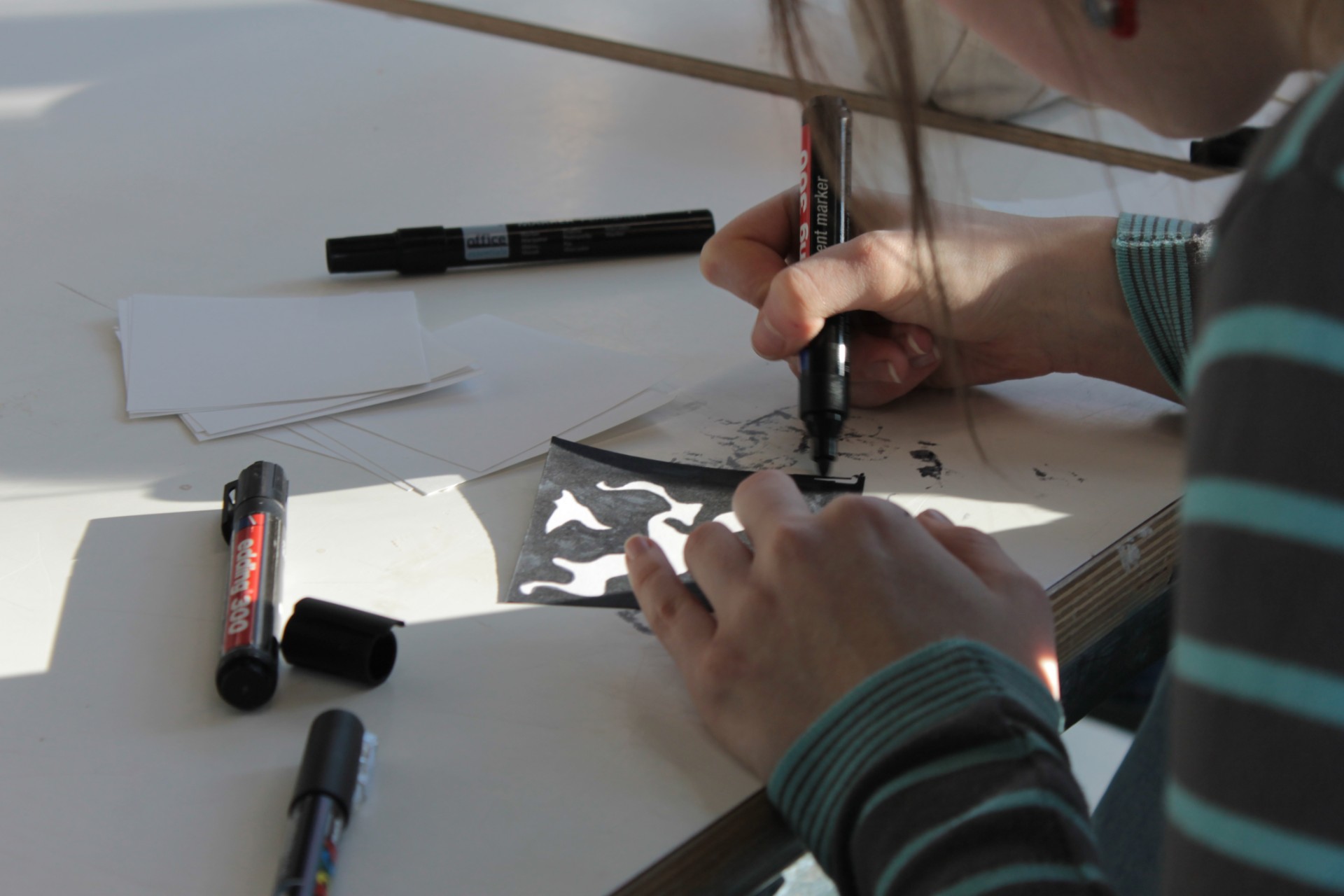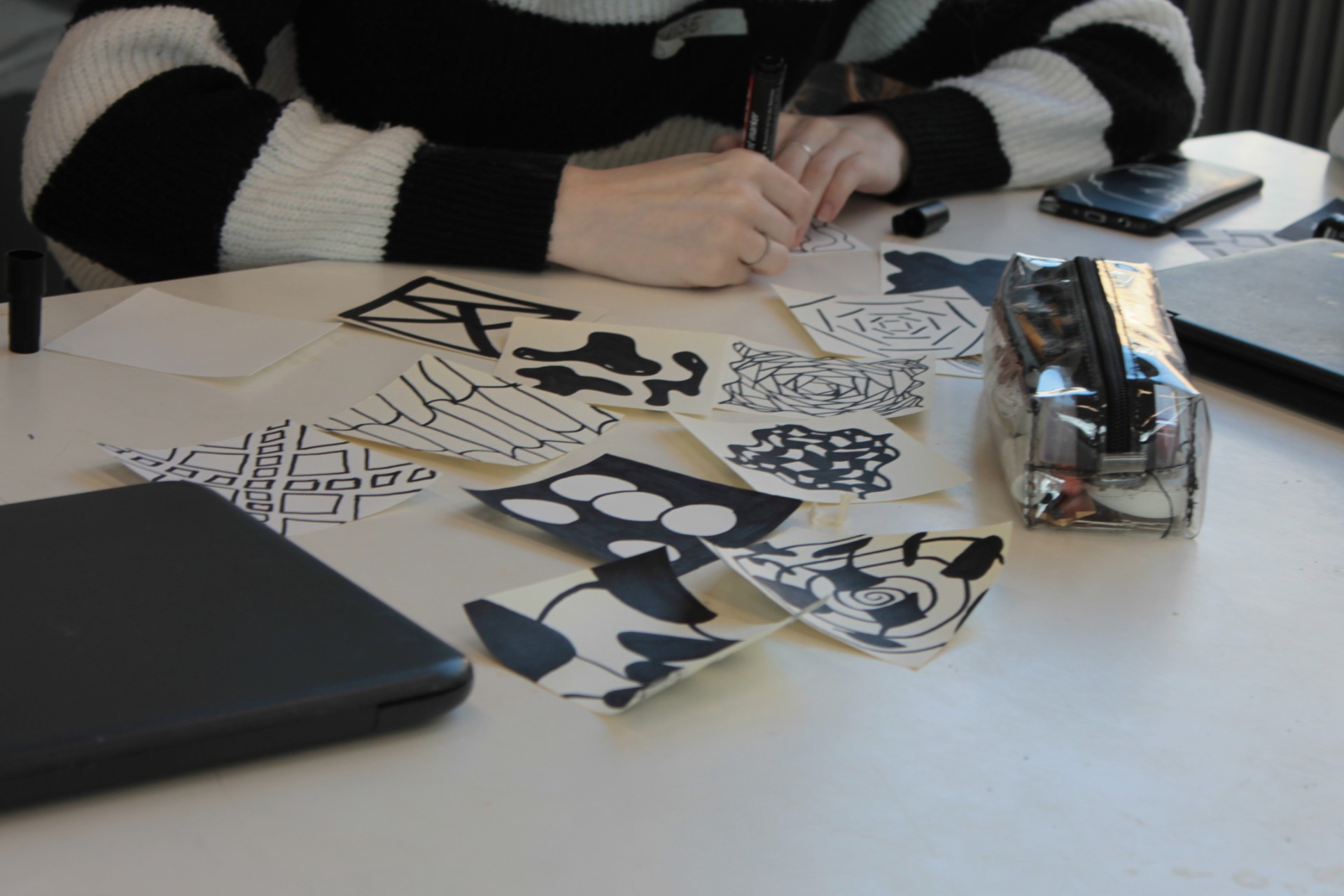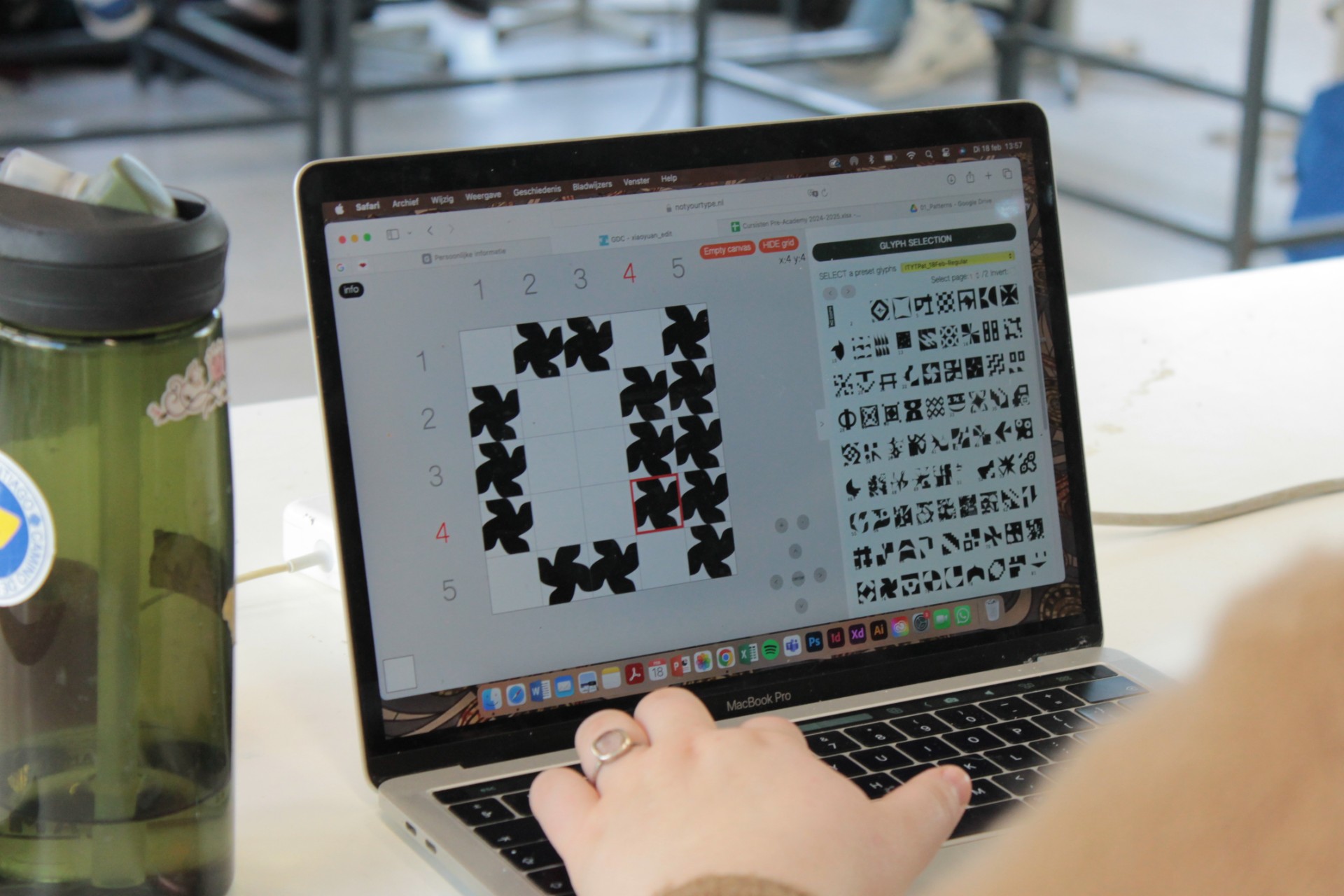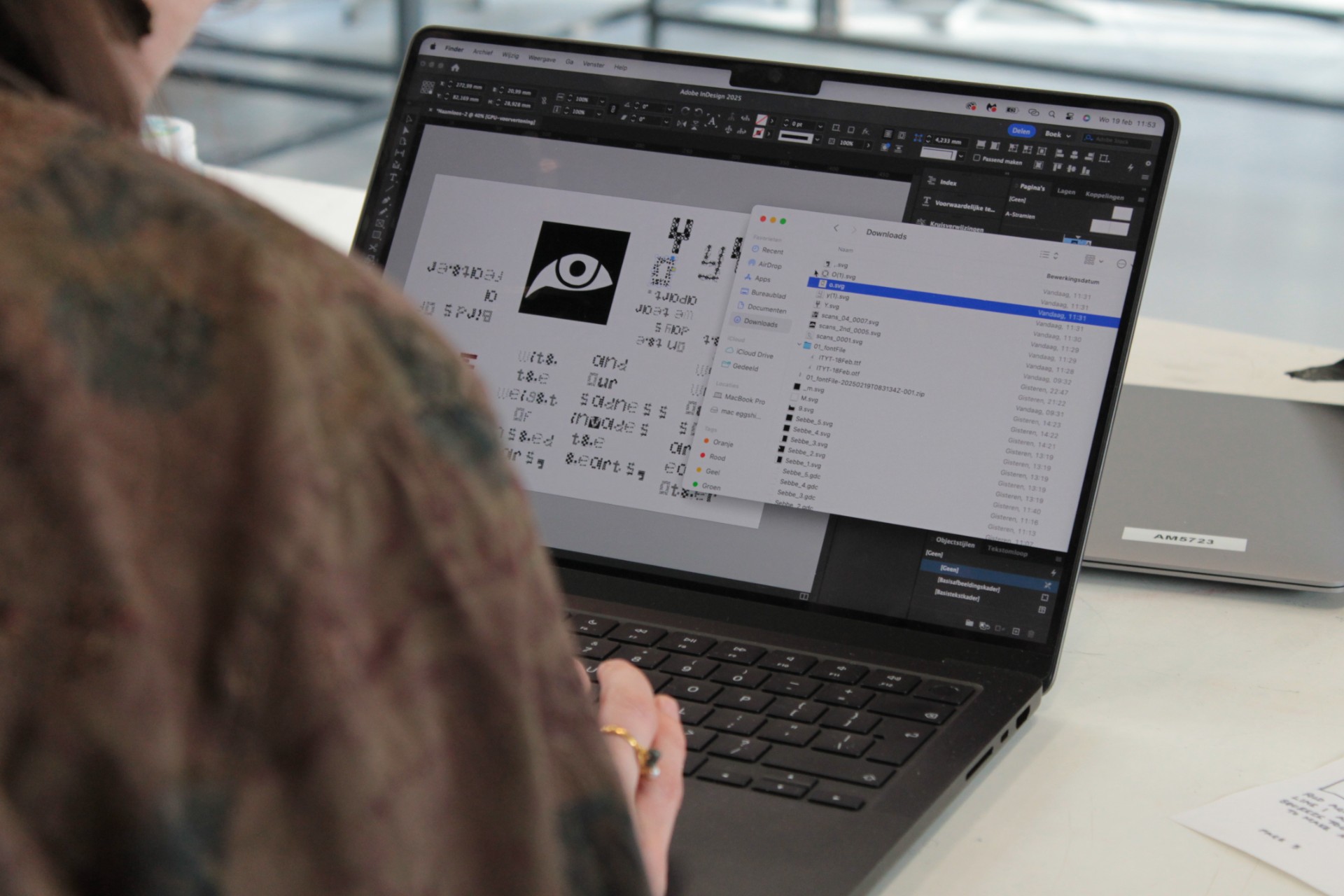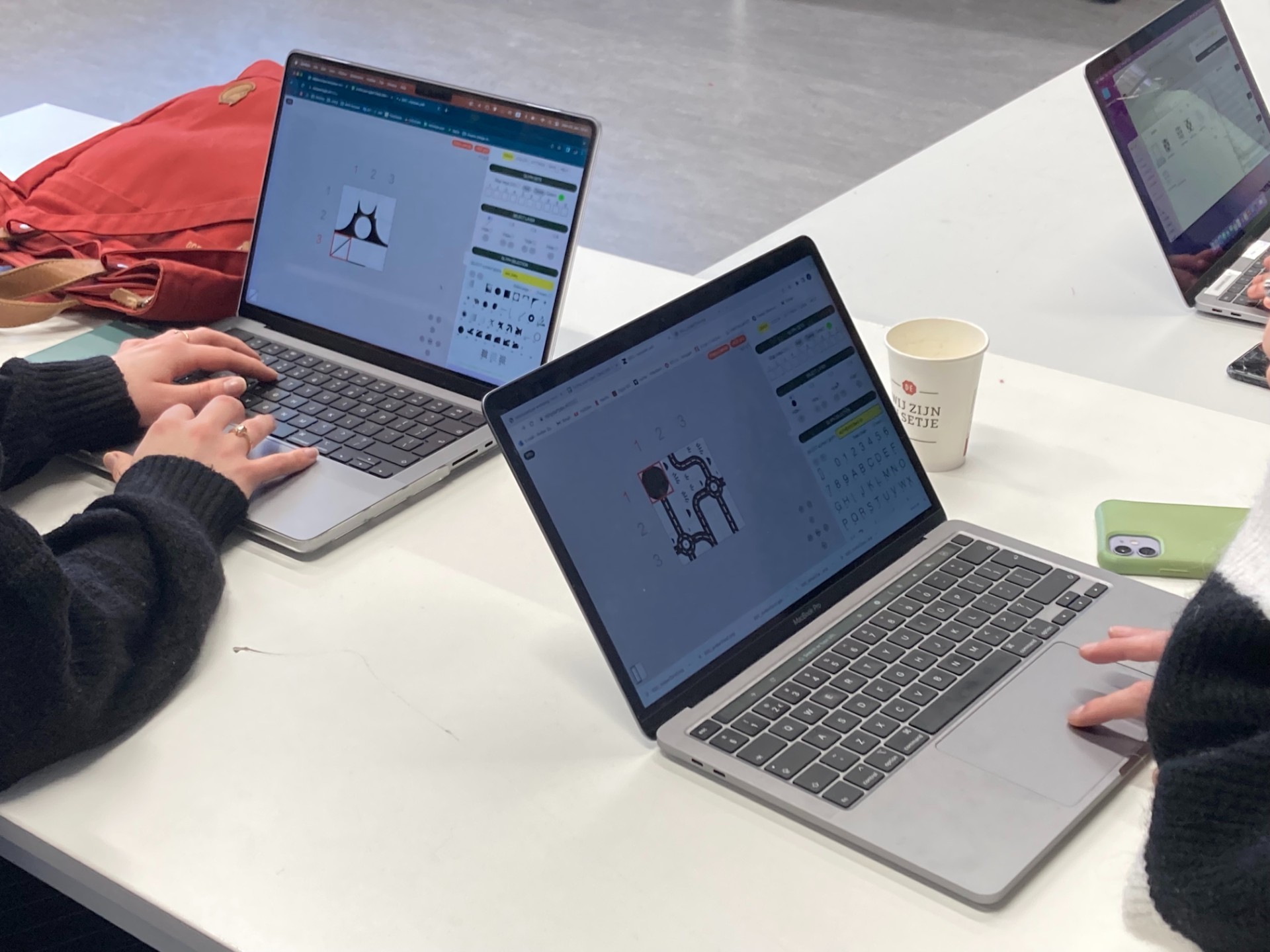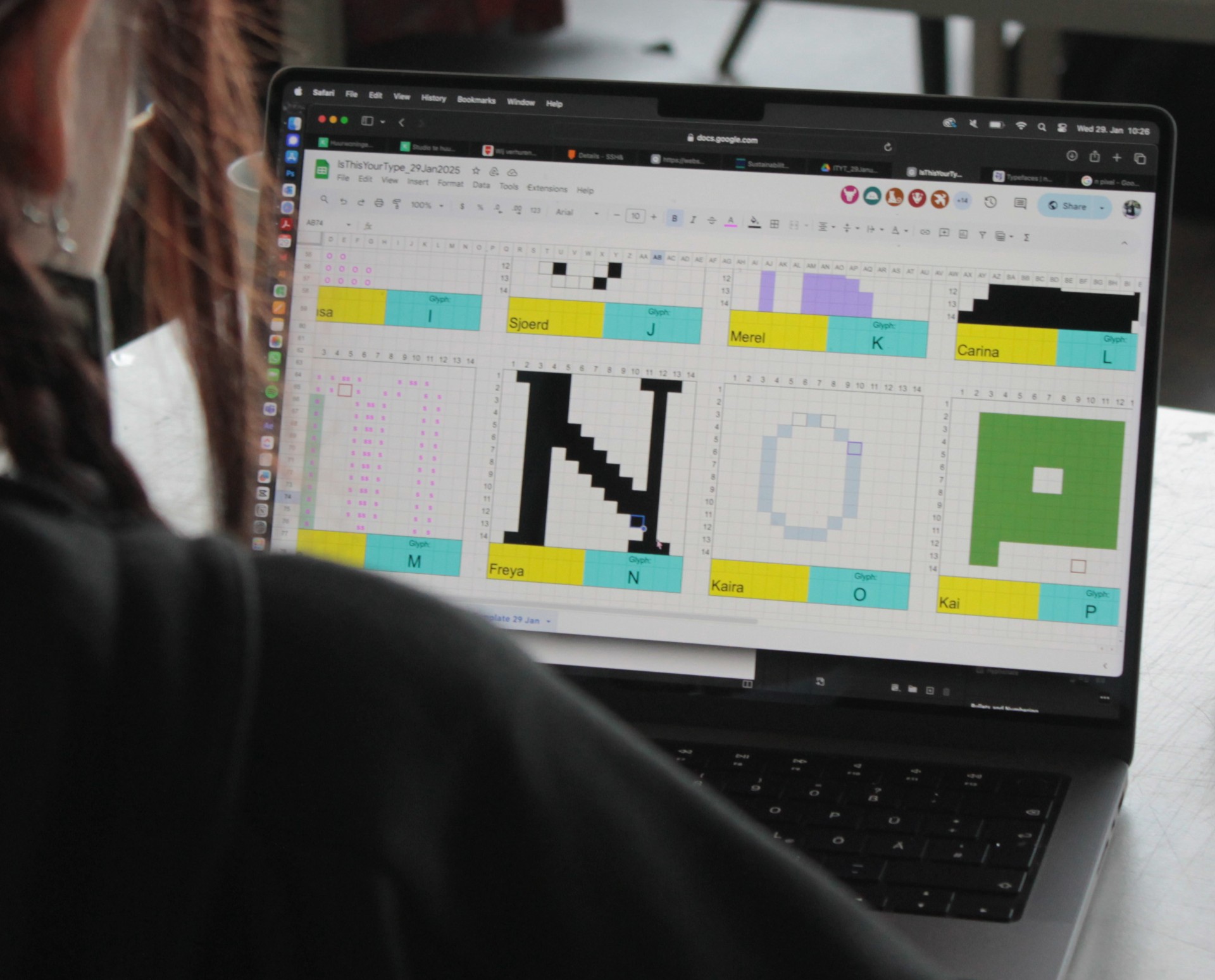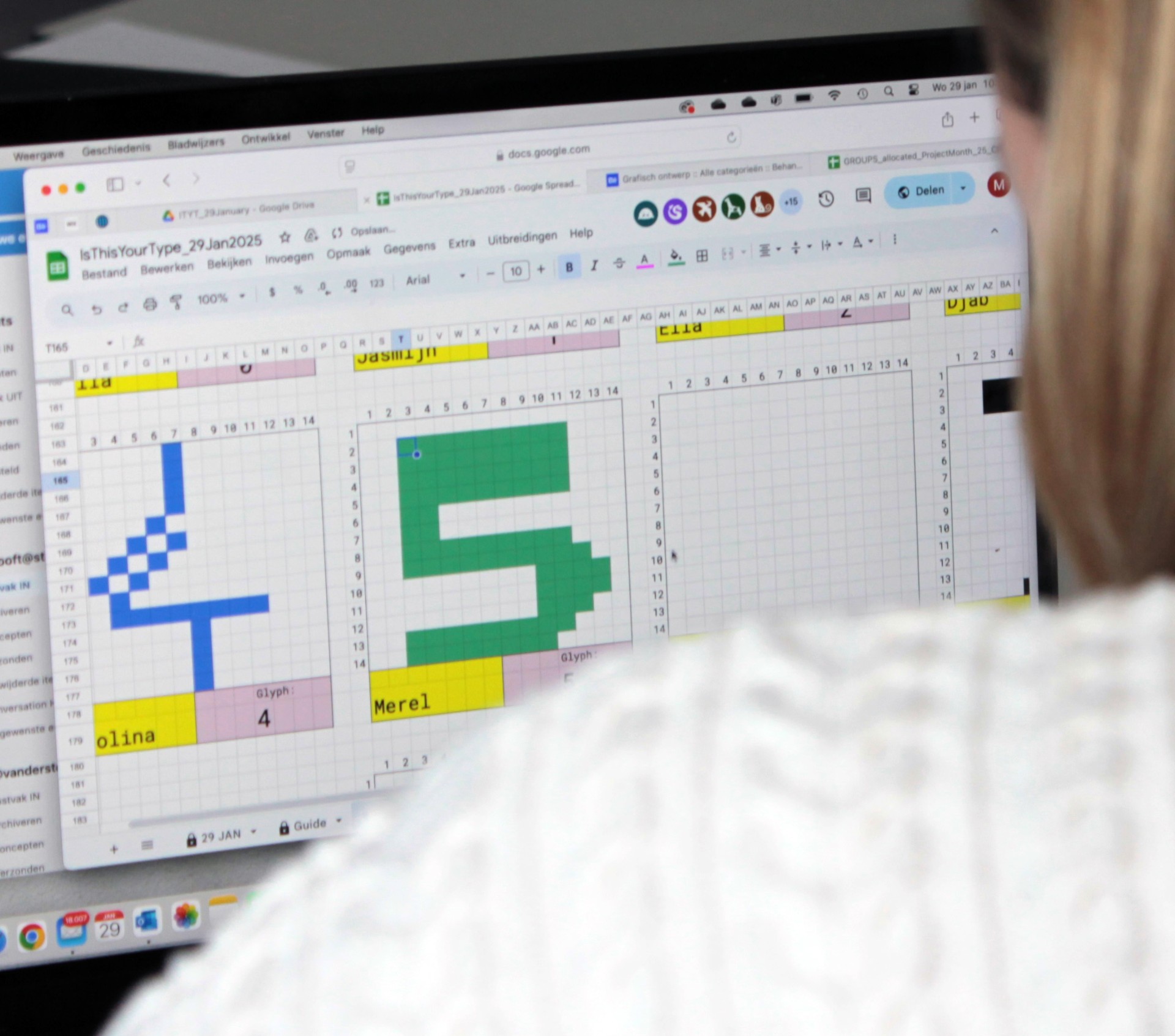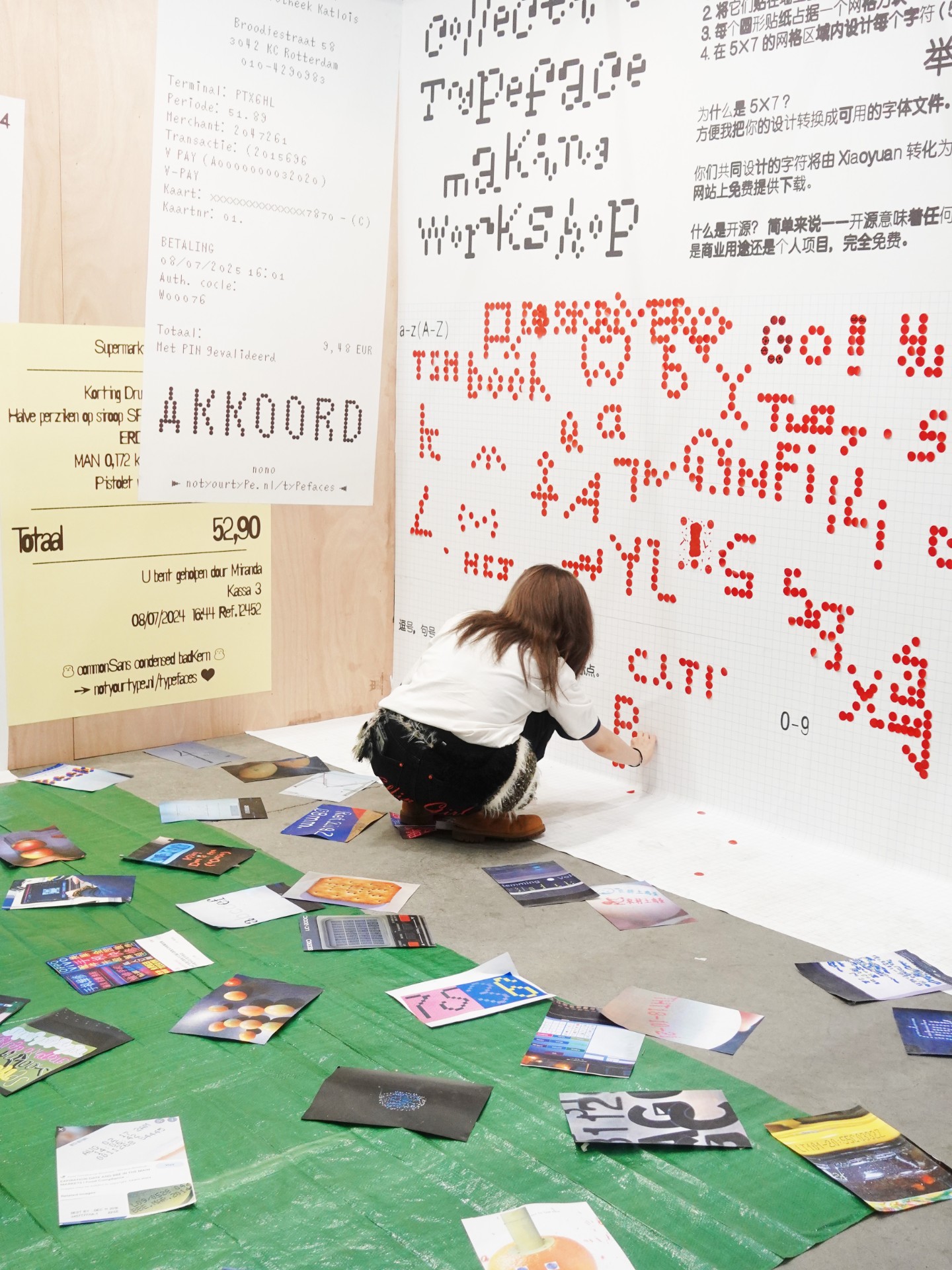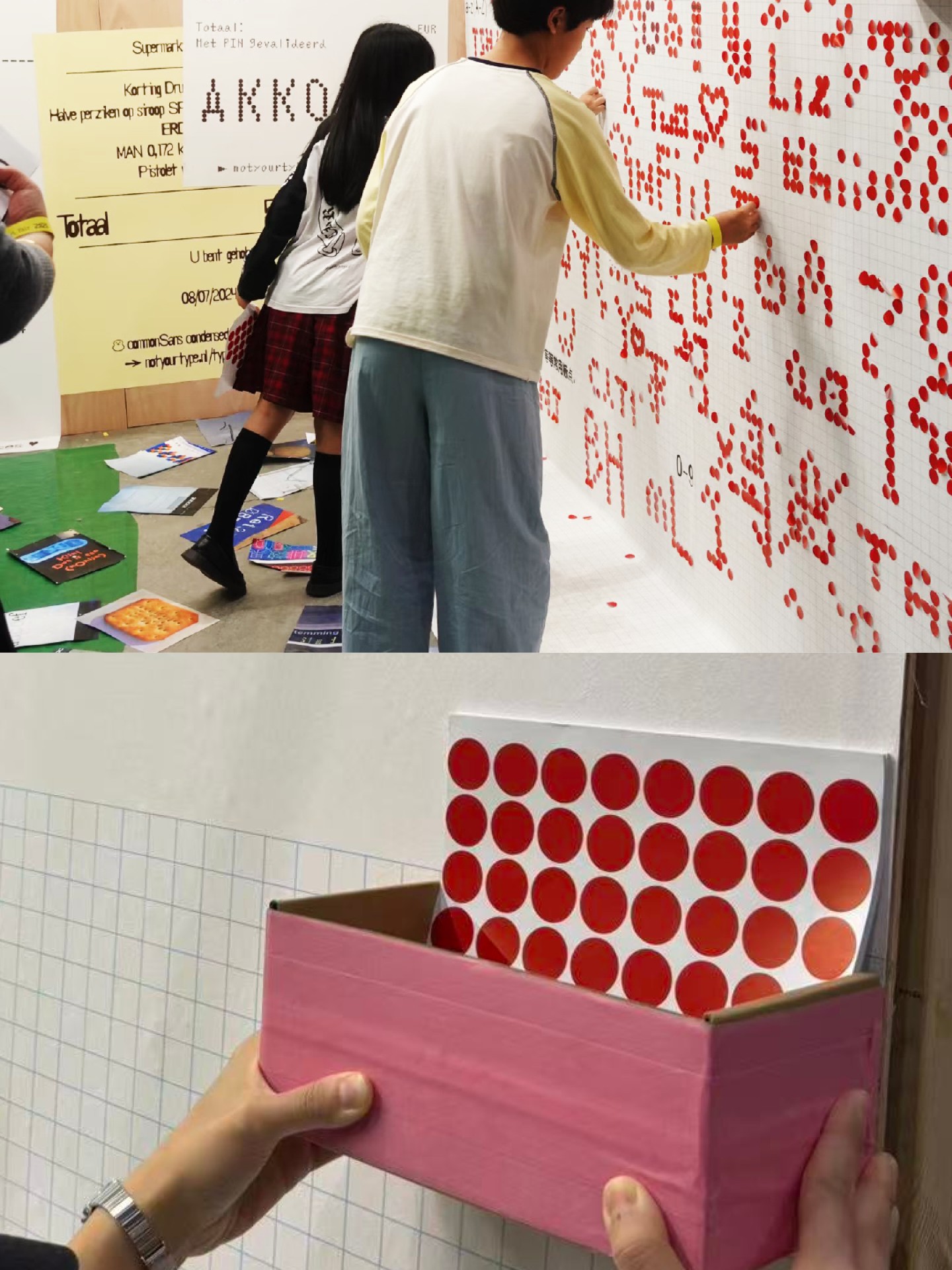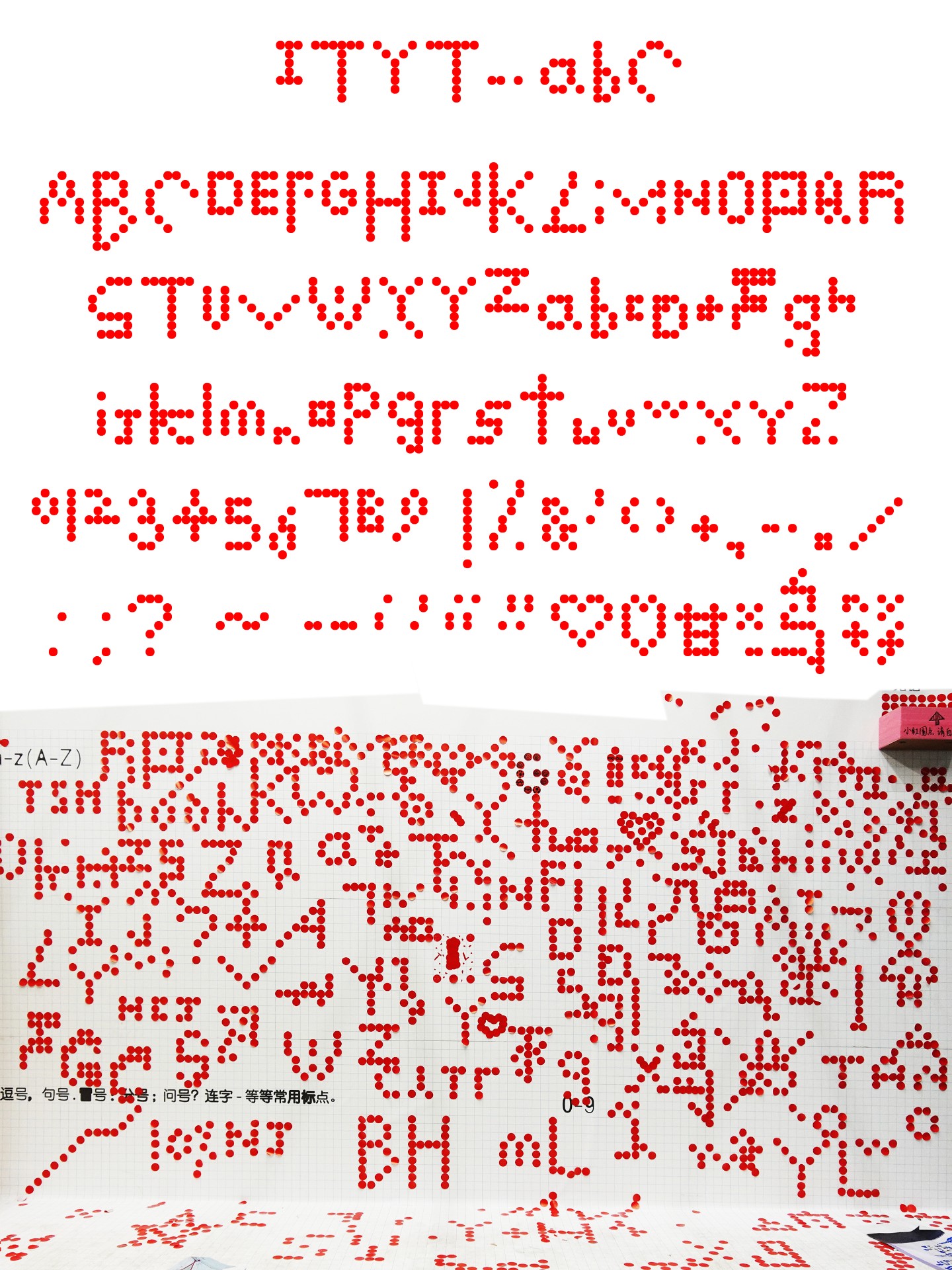
Collaborative type workshops
6 styles
ITYT (Is This Your Type) is a workshop series exploring unconventional ways of making typefaces, with a particular focus on modular and collaborative type design. The format and tools used in each workshop adapt depending on the participants' technical background.
The process of making, the tools, and approaches matter the most. The result is almost always a font file where each glyph is drawn by a different person.
Is This Your Type #5
OPEN M Art Fair
G&G 创意社区
Shenzhen, CHINA
Tools
Round Stickers
Is This Your Type #3
18.02.2025
Tools
papers and pens, Glyph Drawing Club
Is This Your Type #2
ArtEZ Arnhem
28-29.01.2025
Tools
Google Sheets and Glyphs App
Is This Your Type #1
ArtEZ Arnhem
Tools
papers and pens, Glyph Drawing Club, Mathigon: Polypad
Visitors to the fair were invited to create letters and digits using round red stickers, which were then recreated in Glyphs. Most glyphs are based on the original sticker positions, while a few missing ones are improvised by Xiaoyuan.